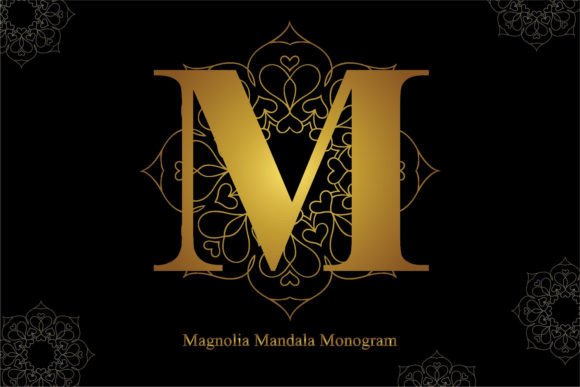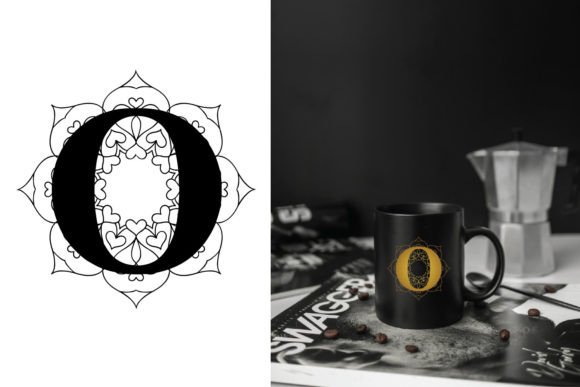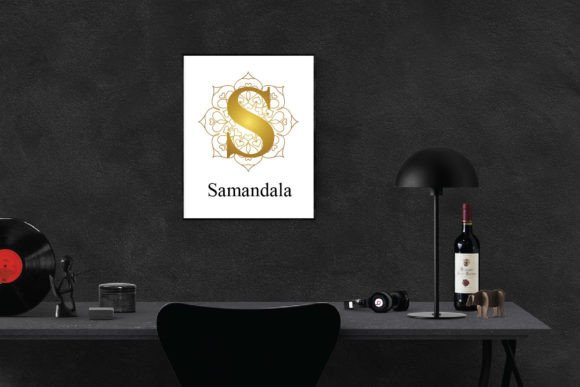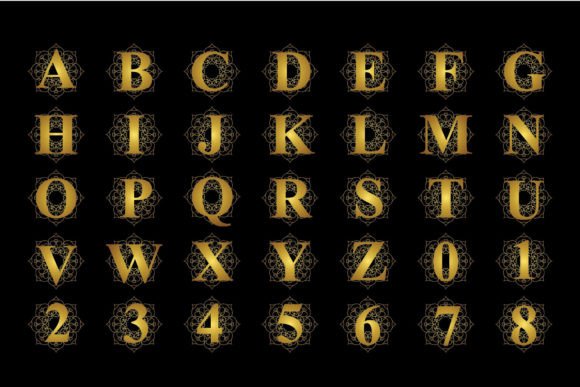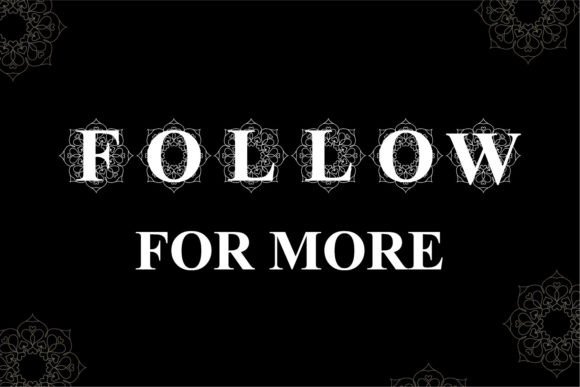
Introduction to Magnolia Mandala Monogram Font Font
Fonts play a crucial role in design, and the Magnolia Mandala Monogram Font font is a typeface that brings both character and versatility to any project. Whether you’re working on a branding project, a website, or a print design, the Magnolia Mandala Monogram Font font offers a unique style that can elevate your work.
Magnolia Mandala Monogram is an incredibly original decorative font, created to level up each of your designs.
Bold and unique, this font will make your creations stand out Add this elegant font to each of your love letters, wedding invitations, or favorite design ideas, and you will be astounded by the outcome.
Key Features of Magnolia Mandala Monogram Font Font
Why Choose Magnolia Mandala Monogram Font Font?
The Magnolia Mandala Monogram Font font is more than just a typeface – it’s a design tool that helps you communicate your message with style and clarity. Its unique character set and versatile design make it suitable for a wide range of applications, from elegant invitations to bold headlines.
With its carefully crafted letterforms and balanced proportions, the Magnolia Mandala Monogram Font font ensures readability and visual appeal across all mediums.
What makes Magnolia Mandala Monogram Font font special?
The Magnolia Mandala Monogram Font font stands out with its unique design, exceptional readability, and versatility across various design applications.